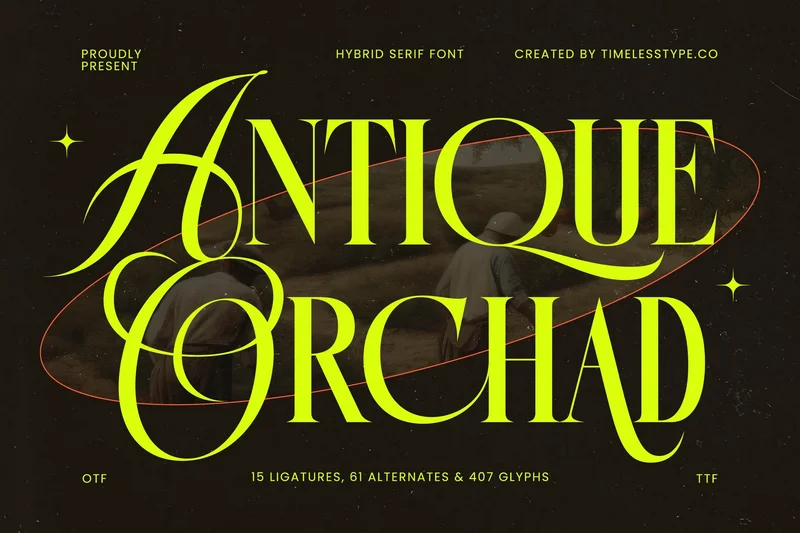
Antique Orchad – Hybrid Serif Font
Antique Orchard is a hybrid serif font that merges classic heritage with modern flair. Featuring 15 ligatures, 61 alternates, and 407 total glyphs, this typeface captures the timeless elegance of vintage typography while maintaining bold, contemporary expressiveness — ideal for branding, posters, editorial layouts, and luxury packaging.
Its high contrast lines, sweeping serifs, and artistic letterforms create a captivating balance between drama and refinement. Perfect for designers seeking to combine sophistication and character, Antique Orchard delivers a strong yet graceful typographic identity for any project.